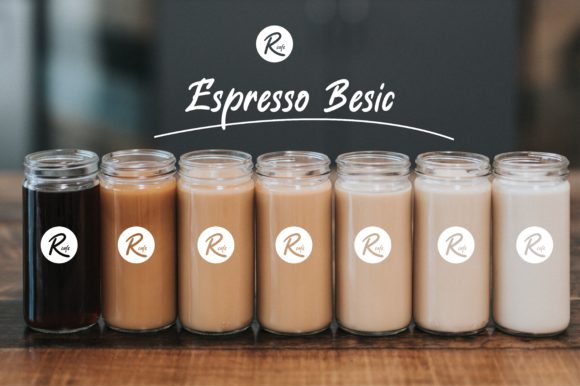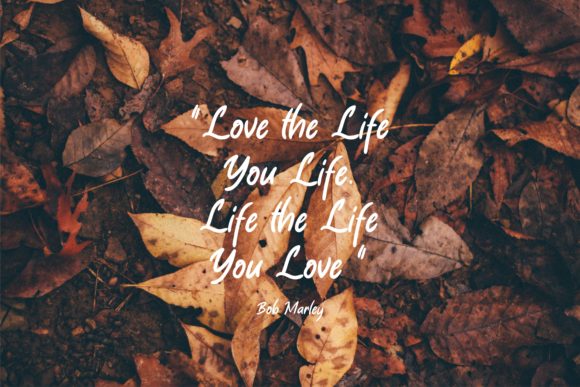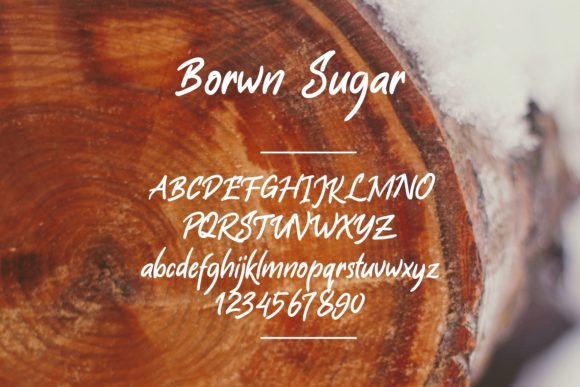
Unleash the Warmth of Your Designs with the Brown Sugar Font
Have you ever stumbled upon a quote that resonates with you so deeply, you feel compelled to share it with the world? Maybe it was a phrase from a favorite book, a line from a loved one, or a simple yet profound phrase that made you pause. Whatever it was, you know that it deserves to be presented in a way that does it justice. That’s where the Brown Sugar Font comes in – a unique handwritten font designed to add a touch of warmth and personality to your designs.
With its exceptional readability and modern aesthetic, the Brown Sugar Font is the perfect tool for designers looking to elevate their work. Whether you’re creating quotes, magazine layouts, logos, posters, or anything in between, this font is sure to bring a touch of sophistication and whimsy to your designs. Its versatility and unique character make it a valuable asset for any designer looking to add a little extra something to their work.
Brown Sugar Font Key Features
- Font Family: Brown Sugar Font is a unique script font with a warm, vintage feel.
- Unique Characteristics: Brown Sugar Font features a distinctive, hand-drawn style with subtle imperfections, giving it a genuine, human touch.
Brown Sugar Font Review
I recently had the chance to work with the Brown Sugar font, and I must say it’s a unique and charming addition to any design project. ✨ The font’s hand-drawn feel gives it a warm and personal touch, making it perfect for creative and artistic projects.
- The font’s cursive script is a standout feature, adding a sense of elegance and sophistication to any text.
- The various weights and styles available make it easy to customize and adapt to different design needs.
- The font’s readability is excellent, even at smaller font sizes, making it a great choice for body text and headings.
However, I did encounter a few limitations ⚠️ that might make it less suitable for certain projects. Specifically:
- The font’s spacing can be a bit inconsistent, leading to some awkward line breaks and awkwardly-placed words.
- The font’s more ornate styles can be a bit overwhelming, especially when used in large quantities.
Overall, I think the Brown Sugar font is a great addition to any designer’s toolkit, but it’s not without its limitations. With some careful planning and consideration, it can add a unique and creative touch to any project.
For a more authentic look, pair the Brown Sugar Font with a distressed texture or a vintage-inspired background.
For a unique look, combine the Brown Sugar Font with hand-drawn illustrations or watercolor effects.
The Brown Sugar Font is perfect for:
1. Vintage-inspired designs.
2. Distressed or worn textures.
3. Handwritten or cursive-style text.
4. Food or dessert branding.